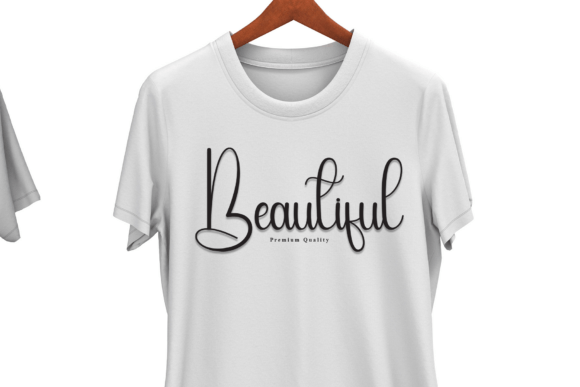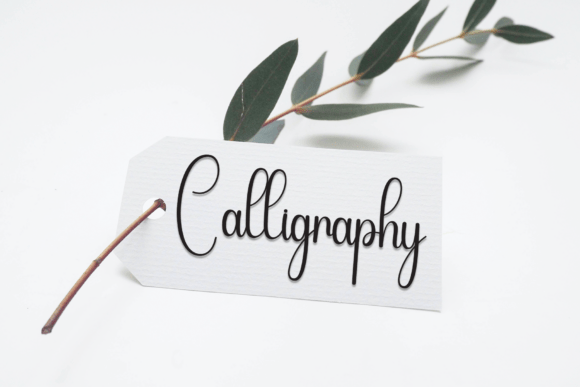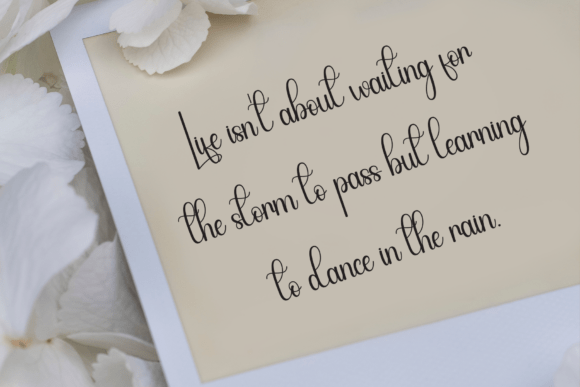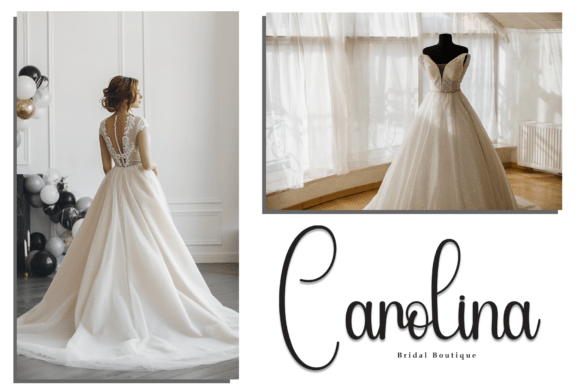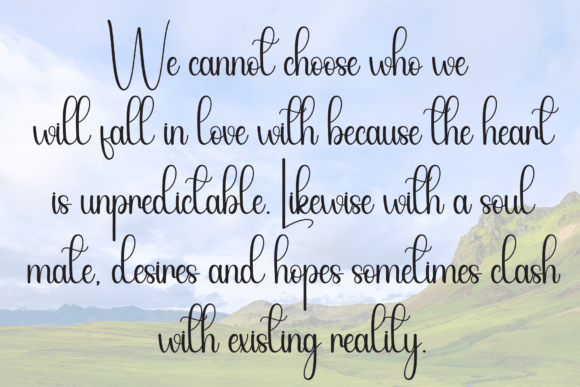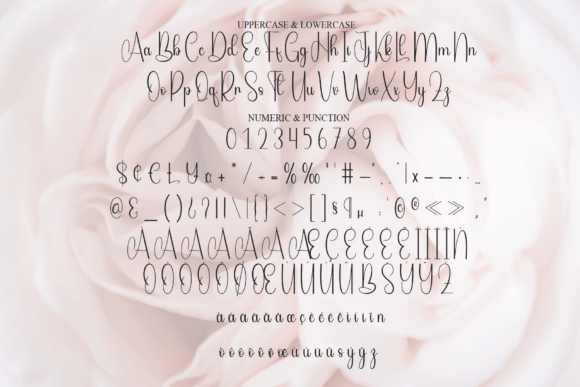
Unleashing the Beauty of Blushing Font
Have you ever found yourself pouring your heart onto paper, scribbling down ideas and inspiration in a frantic yet beautiful dance of pen and ink? That’s exactly the kind of creative moment that inspired the development of Blushing Font, a stunning handwritten script typeface that captures the essence of elegance and fluidity.
Blushing Font is the perfect blend of charm and modernity, designed to add a personal touch to any design project. Whether you’re crafting a wedding invitation, creating a brand identity, or working on a creative project, this versatile typeface will elevate your work to new heights. As a designer, you know the value of a well-chosen font – it can make all the difference in conveying your message and connecting with your audience.
- Unique Characteristics: Blushing Font features a unique, hand-drawn style with subtle imperfections, giving it a warm and inviting feel. The font includes a range of ligatures and swashes to add a touch of elegance.
Designer Review: Blushing Font
Overall, I’m impressed with the Blushing Font. It has a unique, feminine touch that’s perfect for fashion, beauty, or lifestyle brands.
- The subtle, blush-colored hue adds a touch of warmth and sophistication.
- The font is highly legible, even at smaller sizes.
- It’s versatile and can be used for both digital and print applications.
- The font may not be suitable for brands with a more masculine or edgy tone.
- The subtle color variation may not be noticeable in certain digital environments.
- The font lacks a bold weight, which may limit its use in headlines or titles.
Despite its limitations, I think the Blushing Font is a great addition to any designer’s toolkit. Its unique aesthetic and high legibility make it perfect for brands looking to add a touch of femininity and sophistication to their visual identity.
Use the Blushing Font to add a touch of elegance and sophistication to your designs. It’s perfect for wedding invitations, birthday cards, and other special occasion designs. Experiment with different font sizes and colors to create a unique look.
The Blushing Font is perfect for designs that require a feminine and romantic touch. It’s commonly used in:
- Birthday cards and party invitations
- Valentine’s Day and anniversary cards
- Wedding website and blog designs